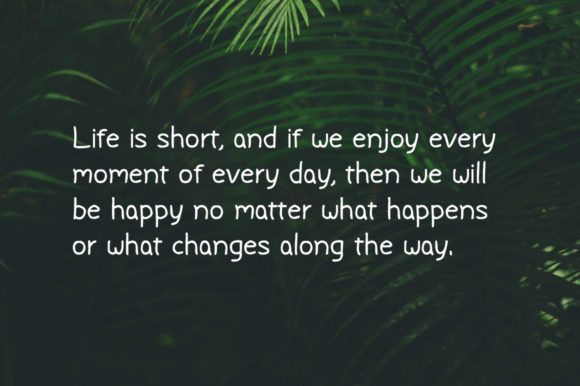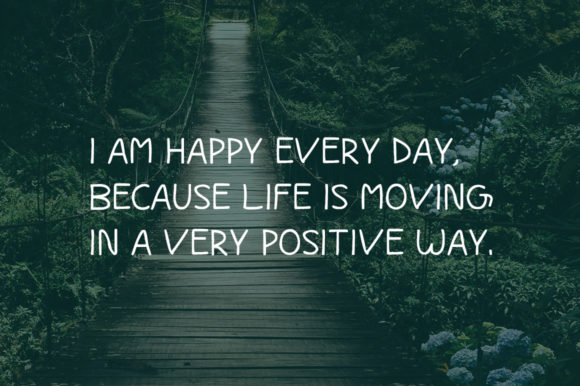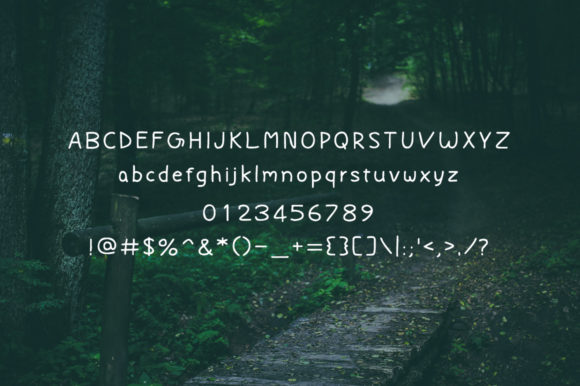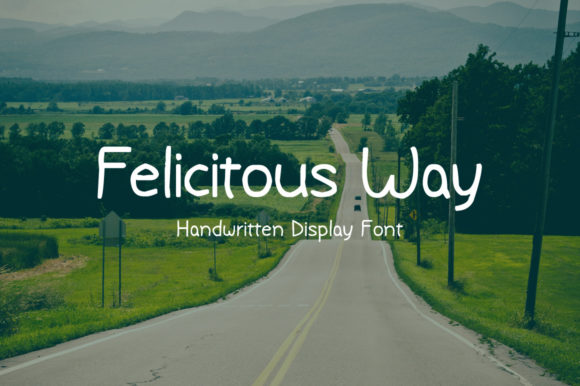
Felicitous Way Font: Elevate Your Designs with a Smart and Charming Touch
In the world of design, typography plays a crucial role in conveying the tone and personality of a project. A well-chosen font can make all the difference in capturing the audience’s attention and leaving a lasting impression. Introducing Felicitous Way, a brand new brush font that’s perfect for adding a smart and charming feel to any design project!
What is Felicitous Way Font?
Felicitous Way is a beautiful, hand-crafted brush font that’s designed to bring a touch of elegance and sophistication to your designs. With its unique blend of classic and modern elements, this font is sure to make your projects stand out from the crowd. Whether you’re a designer, crafter, or DIY enthusiast, Felicitous Way is the perfect choice for anyone looking to add a personal touch to their work.
Key Features of Felicitous Way Font
- Unique Brush Strokes: Felicitous Way features beautiful, hand-painted brush strokes that give it a distinctive and charming feel.
- Smart and Charming: This font is designed to add a touch of sophistication and elegance to your designs, making it perfect for projects that require a high level of professionalism.
- Highly Versatile: Felicitous Way can be used for a wide range of design projects, from branding and advertising to crafting and DIY.
- Easily Customizable: With its flexible design, Felicitous Way can be easily customized to fit your specific needs and style.
Felicitous Way is an ideal choice for designers and crafters who want to add a personal touch to their work. Whether you’re creating a logo, brochure, or social media graphics, this font is sure to make your designs stand out. Here are some ways you can use Felicitous Way:
- Branding and Identity: Use Felicitous Way to create a unique and memorable brand identity that reflects your business’s personality and values.
- Stationery and Paper Crafts: Add a touch of elegance to your stationery, greeting cards, and paper crafts with Felicitous Way.
- Digital Graphics: Use Felicitous Way to create stunning digital graphics, such as social media posts, blog headers, and email newsletters.
Tips for Using Felicitous Way Font
To get the most out of Felicitous Way, here are some tips to keep in mind:
- Pair it with a Simple Font: Pair Felicitous Way with a simple font to create a beautiful contrast that adds depth and interest to your design.
- Experiment with Colors: Try out different colors and textures to add an extra layer of personality to your design.
- Use it for Headings: Felicitous Way is perfect for headings and titles, so use it to add a touch of elegance to your design.
| Author | Nuovo Tocco |
Felicitous Way is a beautiful and versatile brush font that’s perfect for adding a smart and charming feel to any design project. With its unique blend of classic and modern elements, this font is sure to make your projects stand out from the crowd. Whether you’re a designer, crafter, or DIY enthusiast, Felicitous Way is an ideal choice for anyone looking to add a personal touch to their work. So why wait? Download Felicitous Way today and start creating stunning designs that leave a lasting impression!